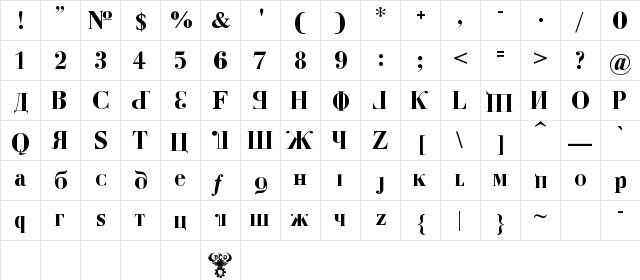
Kremlin Duma Bold
Design Context for Kremlin Duma Typeface
Kremlin Duma takes a measured approach to typography — its balanced proportions and neutral character make it a reliable workhorse for both digital and print work. Its bold stroke weight gives it real presence on the page.